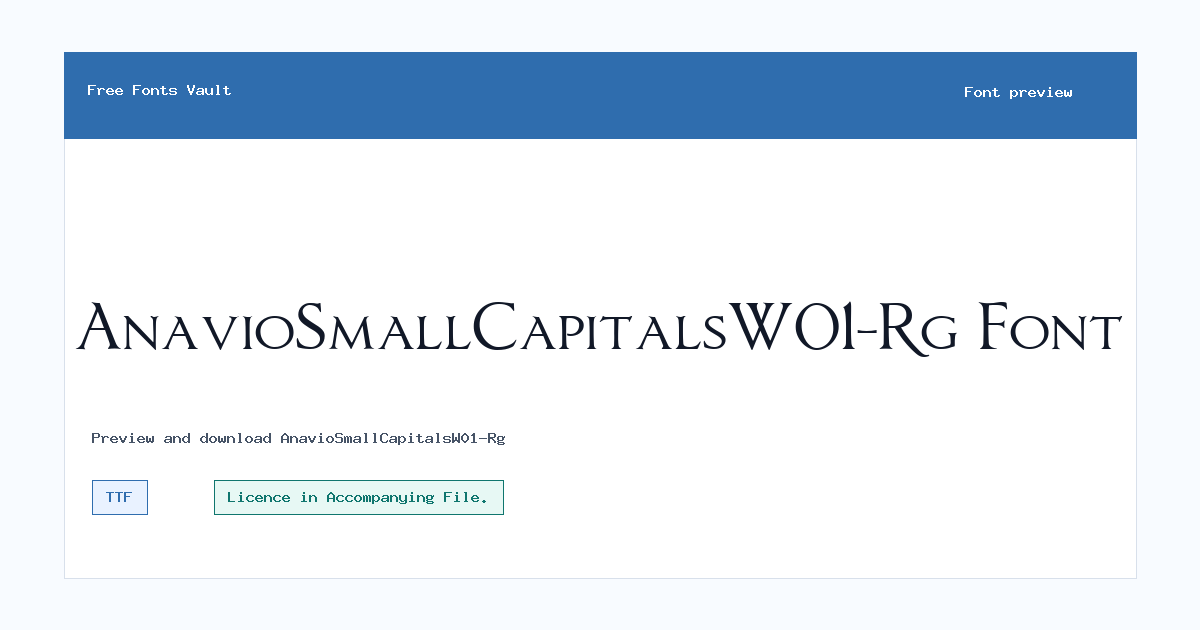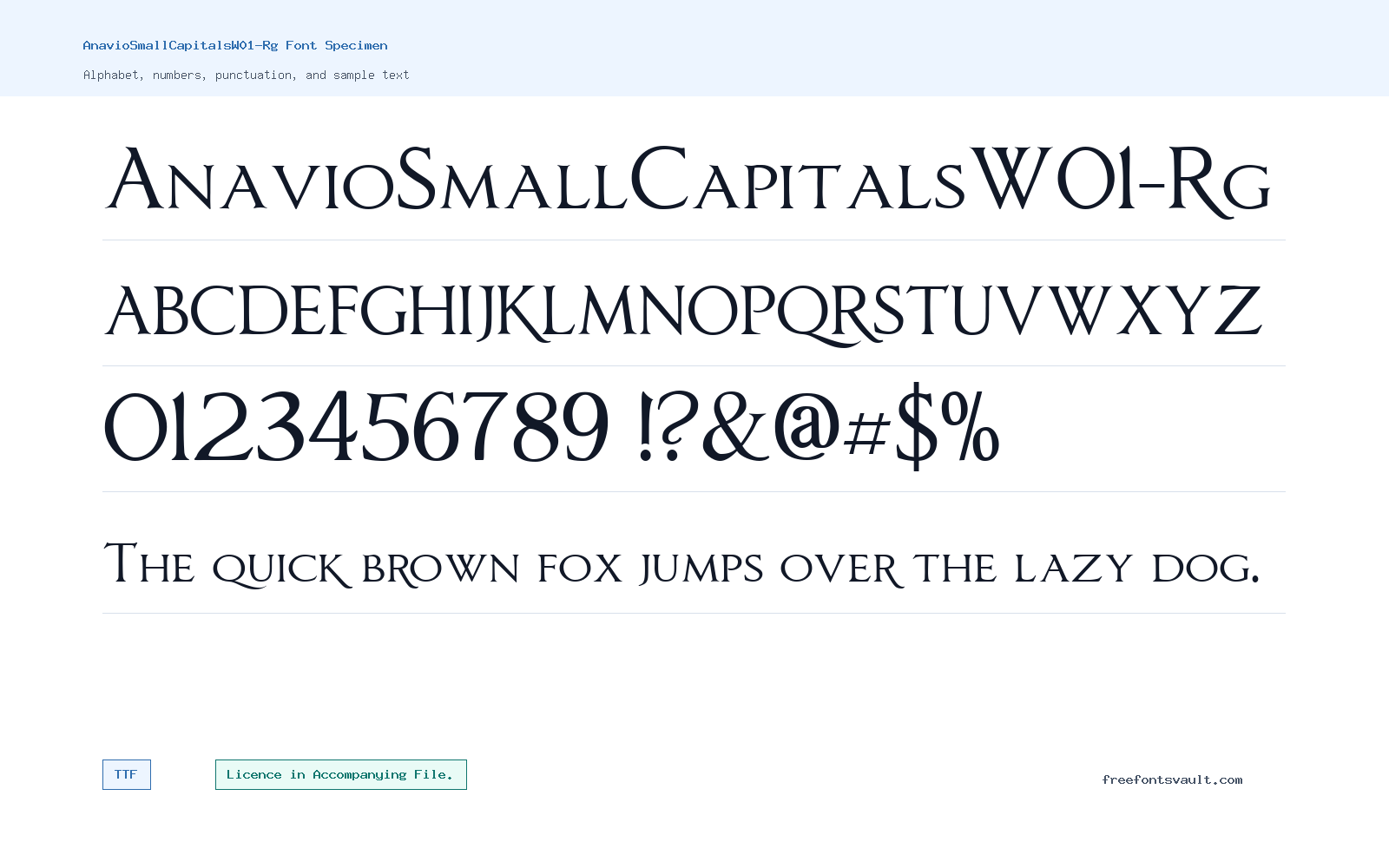
AnavioSmallCapitalsW01-Rg
- Designer Paul J Lloyd
- Foundry Greater Albion Typefounders
Anavio Small Capitals W01 Regular is a TTF font built around a small-capitals style, making it useful when you want uppercase-like lettering with a more controlled text rhythm.
Anavio Small Capitals W01 Regular is listed as a regular-weight, normal-style font file. Its name points to a small-capitals design, so it is best approached as a display or emphasis font rather than a general paragraph face. Small caps can give headings, labels, initials, and short lines a formal look without the heavy feel of full uppercase text.
Use the preview box to test the exact words you plan to set, especially names, acronyms, menu items, and title lines. Small-capitals fonts often work best in short settings where spacing and letter shape can stay clear. For longer reading, pair it with a simpler serif or sans serif body font and keep Anavio Small Capitals W01 Regular for headings, pull quotes, badges, or decorative text blocks.
The small-capitals treatment can be useful when a design needs authority without shouting. It gives short text a polished editorial tone, especially in all-name settings such as chapter labels, certificate names, menu headings, stationery, book covers, and classic branding drafts. Keep the line length short and give the letters enough spacing so the capital rhythm feels intentional instead of compressed.
- Small-capitals style suited to short display text and emphasis
- Formal tone for classic editorial, certificate, and label work
- Useful when full uppercase feels too loud but lowercase feels too casual
- Headings, section titles, initials, and short formal labels
- Certificates, invitations, editorial accents, badges, and typographic decoration
- Book covers, title pages, menus, nameplates, and short typographic marks
Anavio Small Capitals W01 Regular is credited to Paul J Lloyd, with Greater Albion Typefounders listed as the foundry.
Try names, acronyms, dates, and punctuation in the preview before downloading. Small-capitals text often benefits from a little extra tracking, wider margins, and a quieter companion font for paragraphs.
What kind of font is Anavio Small Capitals W01 Regular?
It is a regular TTF font with a small-capitals style, suited mainly to short display text, headings, and decorative emphasis.
Who designed Anavio Small Capitals W01 Regular?
The font is credited to Paul J Lloyd, and Greater Albion Typefounders is listed as the foundry.
Is Anavio Small Capitals W01 Regular good for body text?
It is better for short text. Small-capitals fonts can become tiring in long paragraphs, so use a simpler companion font for body copy.
How should I pair Anavio Small Capitals W01 Regular?
Pair it with a readable serif or sans serif for body copy, then reserve Anavio Small Capitals W01 Regular for headings, labels, initials, and short decorative text.